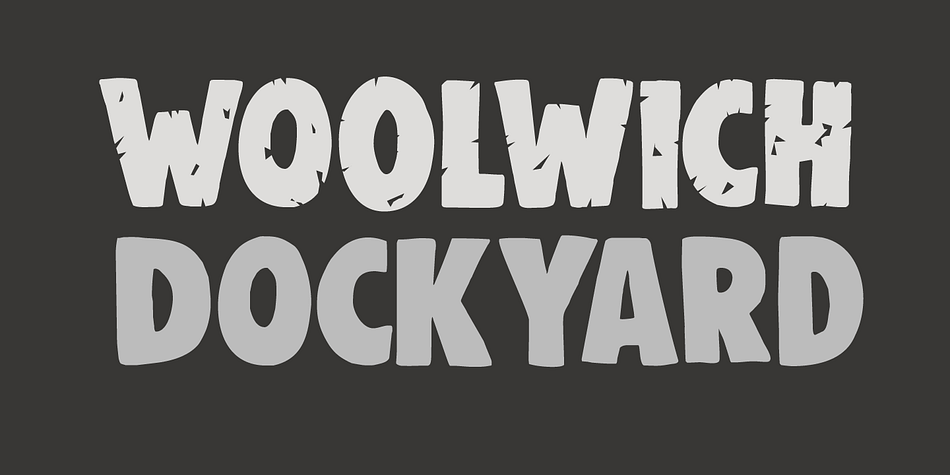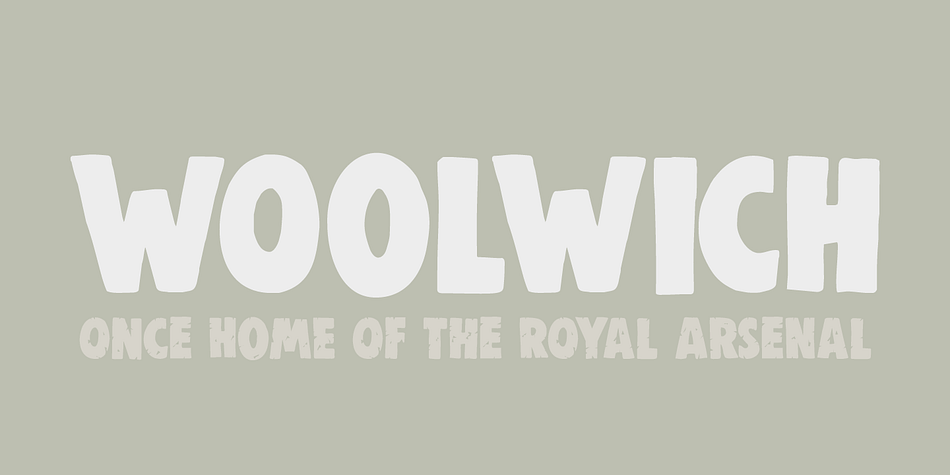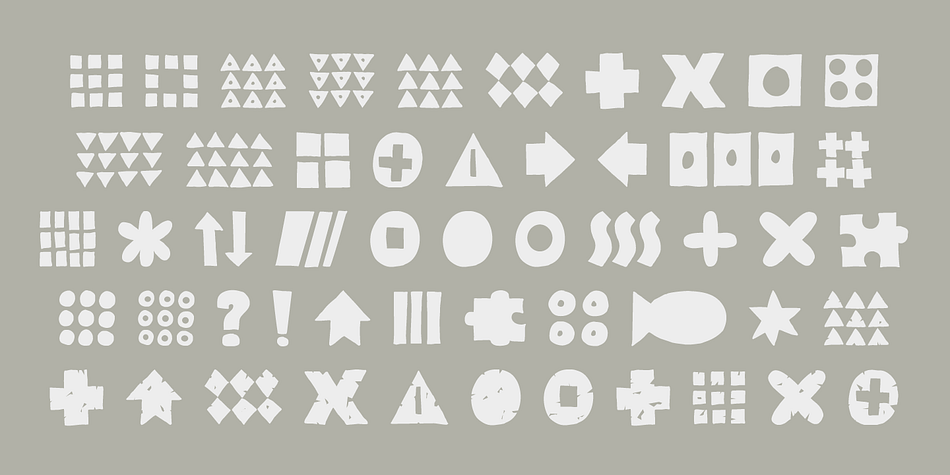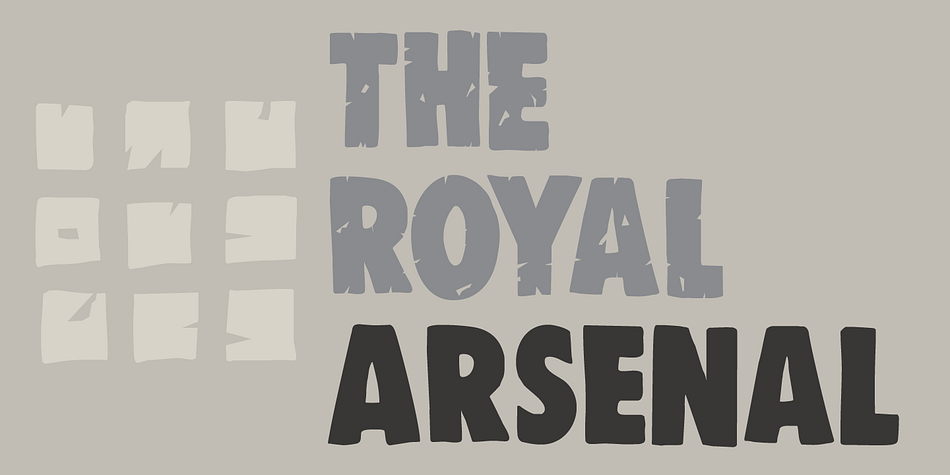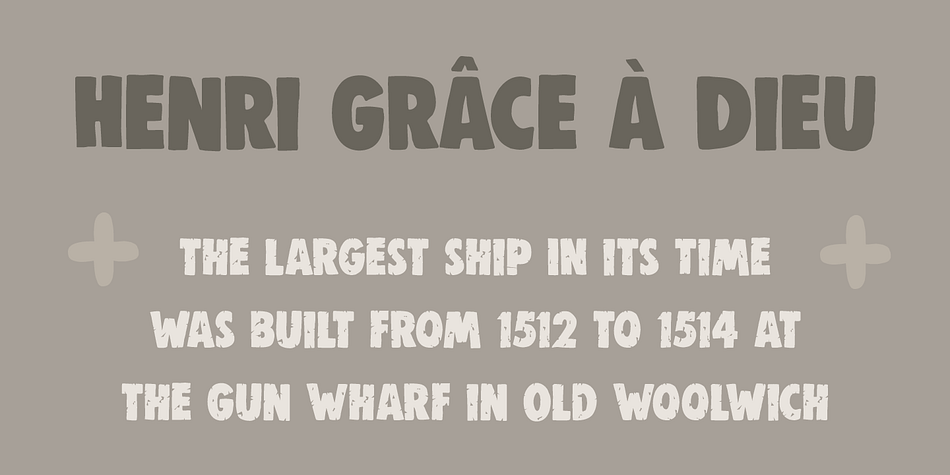
Designed by David Kerkhoff, Woolwich is a dingbat and hand display font family. This typeface has five styles and was published by Hanoded.
Woolwich is a jolly fine display font, named after a district in south-east London. Woolwich, somewhat inspired by Futura condensed, was completely made by hand and comes in a clean and an eroded version. It is highly legible and will certainly make your designs stand out.
Woolwich speaks a lot of languages, including the language of doodles.